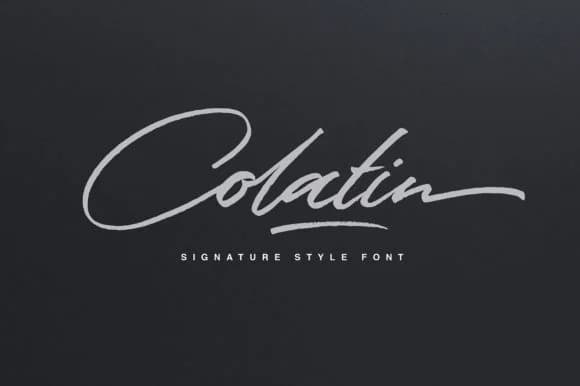
Colatin Script Font by getstudio is a handwritten script with a contemporary edge that balances flowing elegance with modern sensibility. The carefully crafted letterforms feel natural and approachable, drawing from the tradition of handwritten scripts while pushing them forward with a fresh perspective. This is script design that doesn't feel stiff or overly formal, yet maintains enough refinement for serious design work.
Wedding invitation suites benefit immediately from Colatin's expressive swashes and the way individual characters dance across the page. Boutique logo designs, wine label branding, and handmade greeting cards all come alive with this typeface's confident personality. The script works equally well on social media graphics, product packaging, and restaurant menu design where you need warmth without sloppiness. Craft projects and DIY signage also pair beautifully with Colatin's authentic character.
The complete character set and thoughtful spacing make this font genuinely versatile. Use it as a display choice for headlines, an accent for quotes, or even as body text in shorter passages where its personality enhances the message. For anyone building brand identity for a creative business or tackling a one-off project that demands character, Colatin Script earns its place in your font collection. Pick it up on Creative Fabrica.
Colatin Script Font is a script font that shines as a display or heading face. Pair it with a clean sans-serif or serif font for body text β the contrast creates a clear hierarchy while the two styles stay balanced and easy to read.
Colatin Script Font